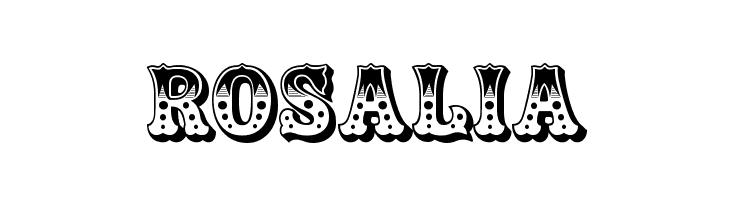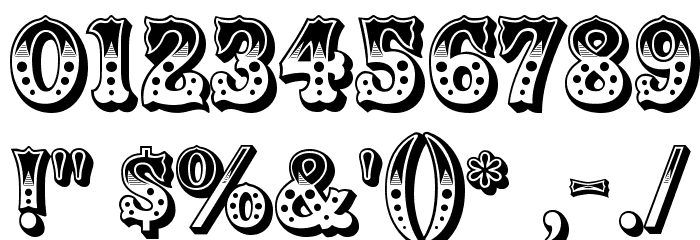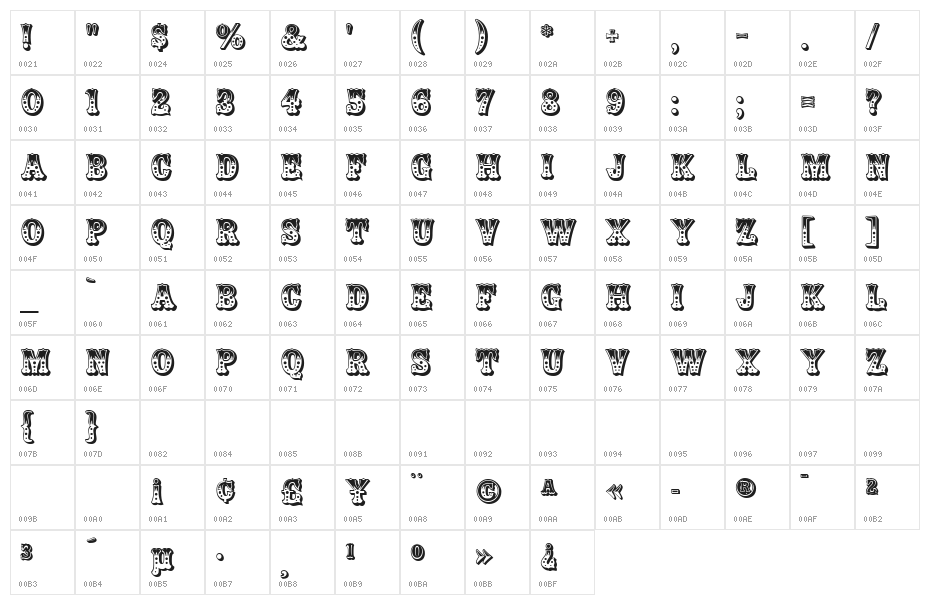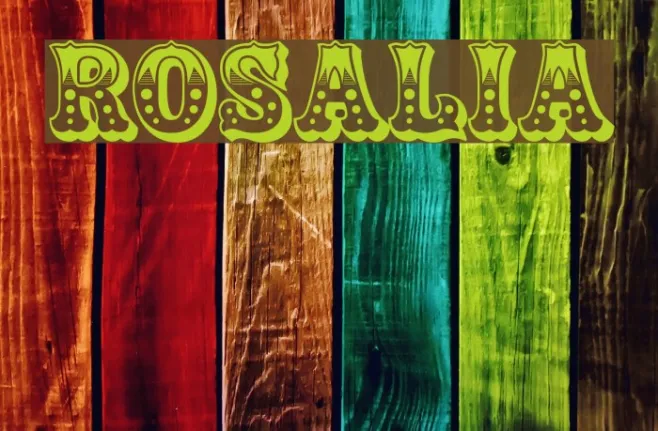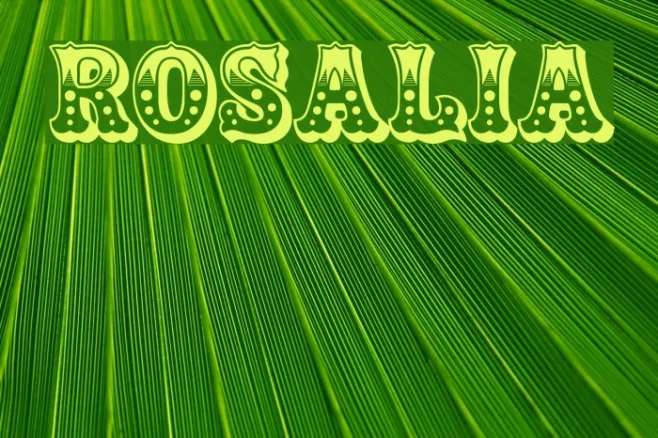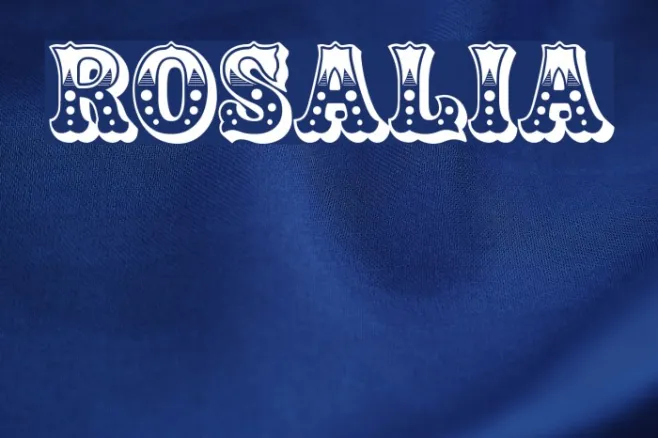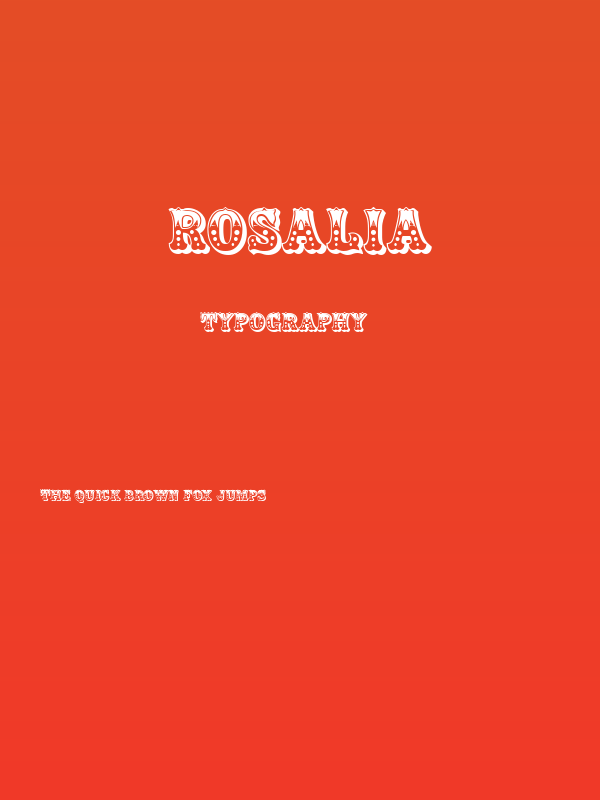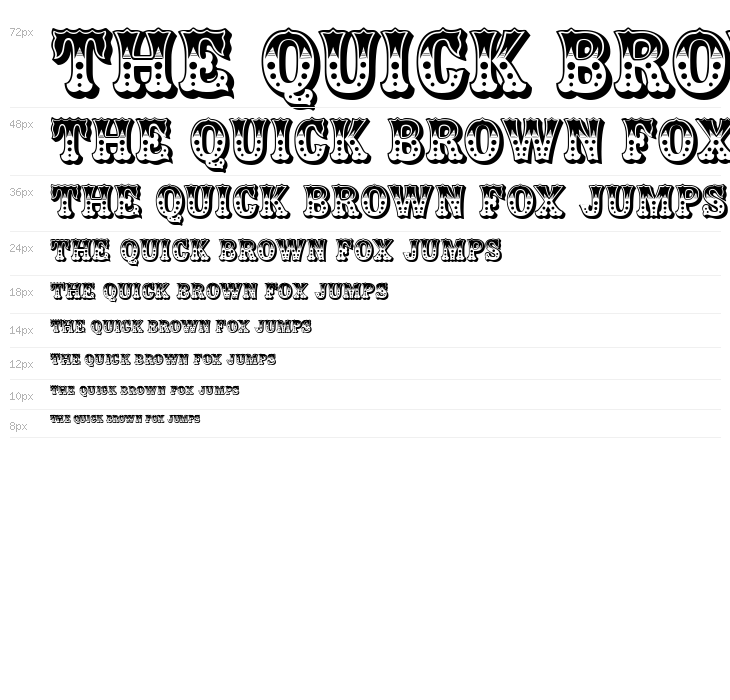
Rosalia Font
This font is a bold and decorative typeface that features a playful and whimsical design. Each character is adorned with intricate patterns and dots, creating a lively and eye-catching appearance. The letters are outlined with a thick, contrasting border that enhances their visibility and adds a sense of depth. The style is reminiscent of vintage circus or carnival themes, making it ideal for projects that require a fun and festive touch. The numbers and special characters maintain the same decorative style, ensuring consistency across all text elements.
A bold, decorative font with a playful, vintage circus-inspired design.
• Proposed Projects: Ideal for posters, event flyers, children's book covers, and any design needing a playful, festive look.
• Category: Decorative/Display
• Overall Style: Vintage, Decorative
• Use Case: Headlines, Posters, Event Flyers